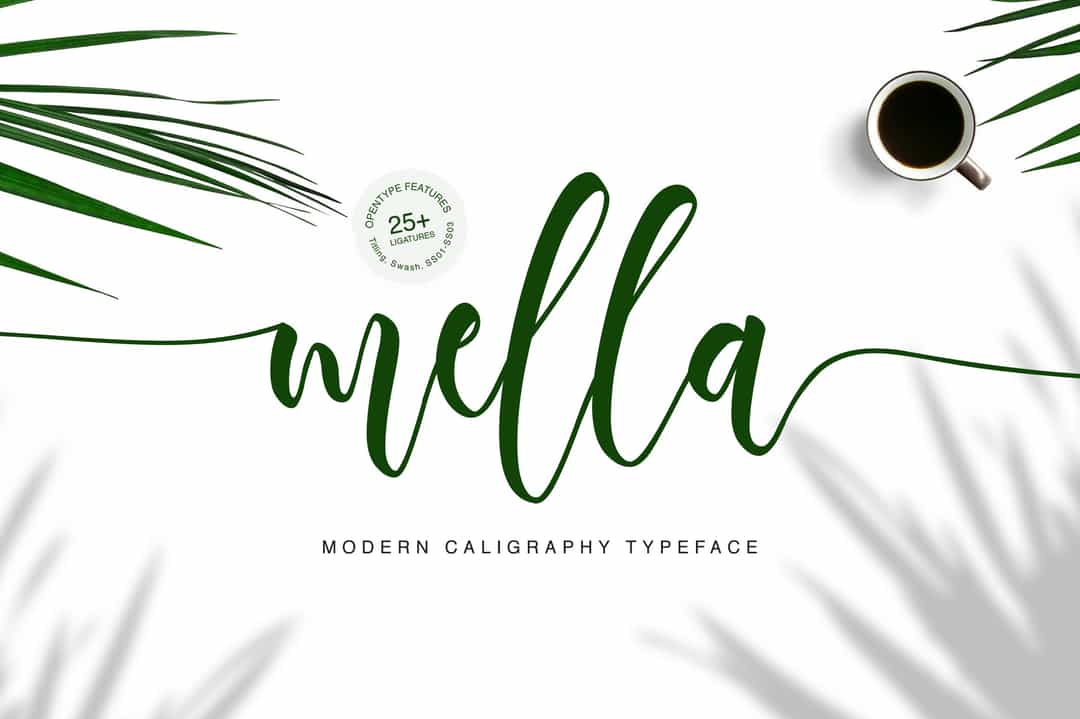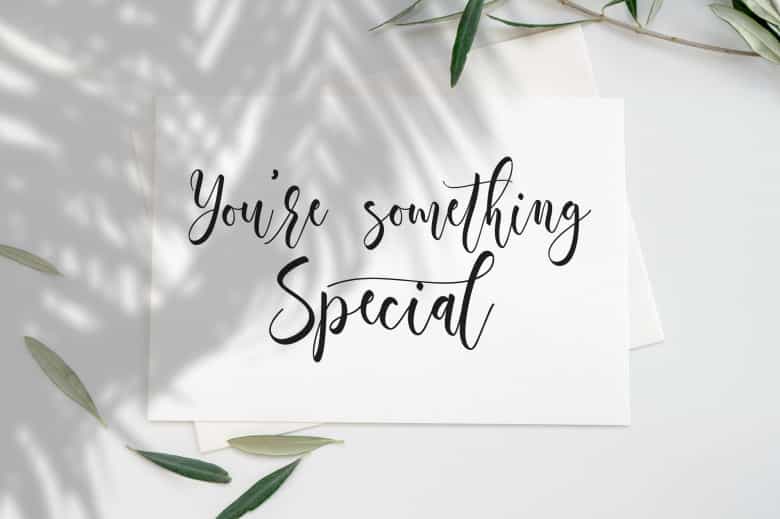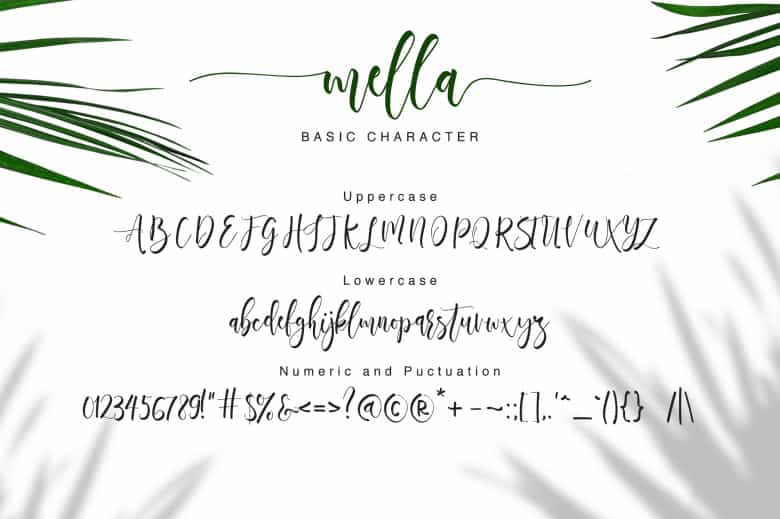
Discover Mella Modern Calligraphy Font, part of the Calligraphy Script collection—a versatile and unique font perfect for adding a personal touch to your projects. Download it for free and enjoy crafting designs with style, from invitations to social media posts. This font is available exclusively for personal use, giving you the freedom to create without limits. Unlock your creativity with Mella Modern Calligraphy Font today!
We are pleased to introduce the beautiful Mella Modern Calligraphy Font! A versatile, luxurious and authentic font featuring a dynamic hand-drawn stroke.